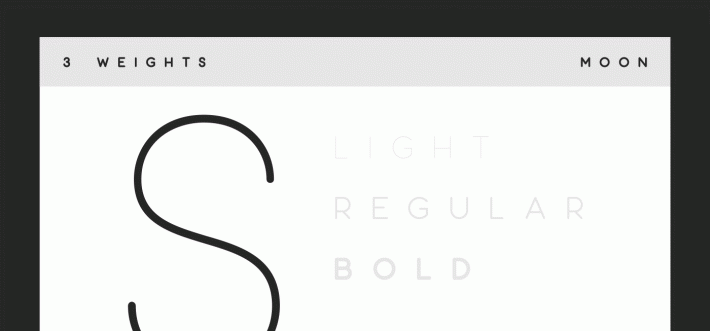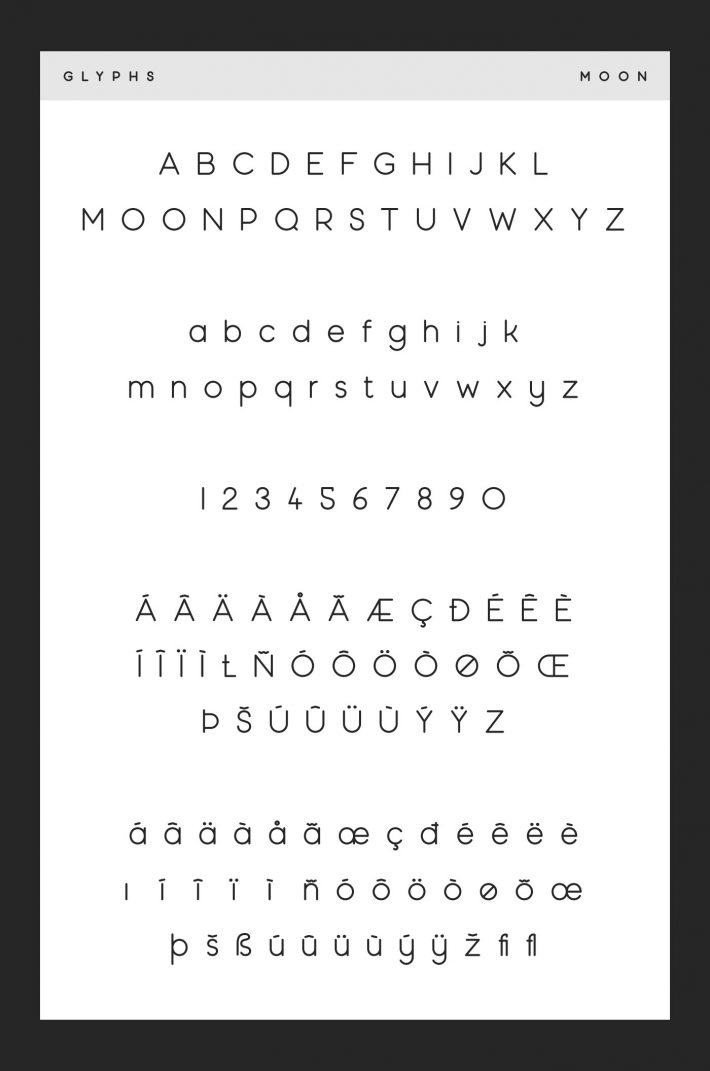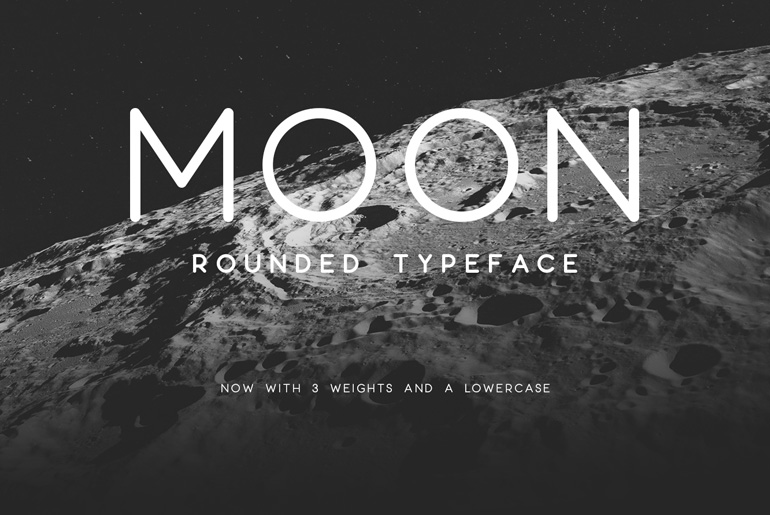
Moon font is a sans serif typeface which is designed by Jack Harvatt. This minimalist and sophisticated urban sans serif typeface has more than 240 characters.
It can be used for any type of logos & titles. You can work with all kinds of projects effectively.